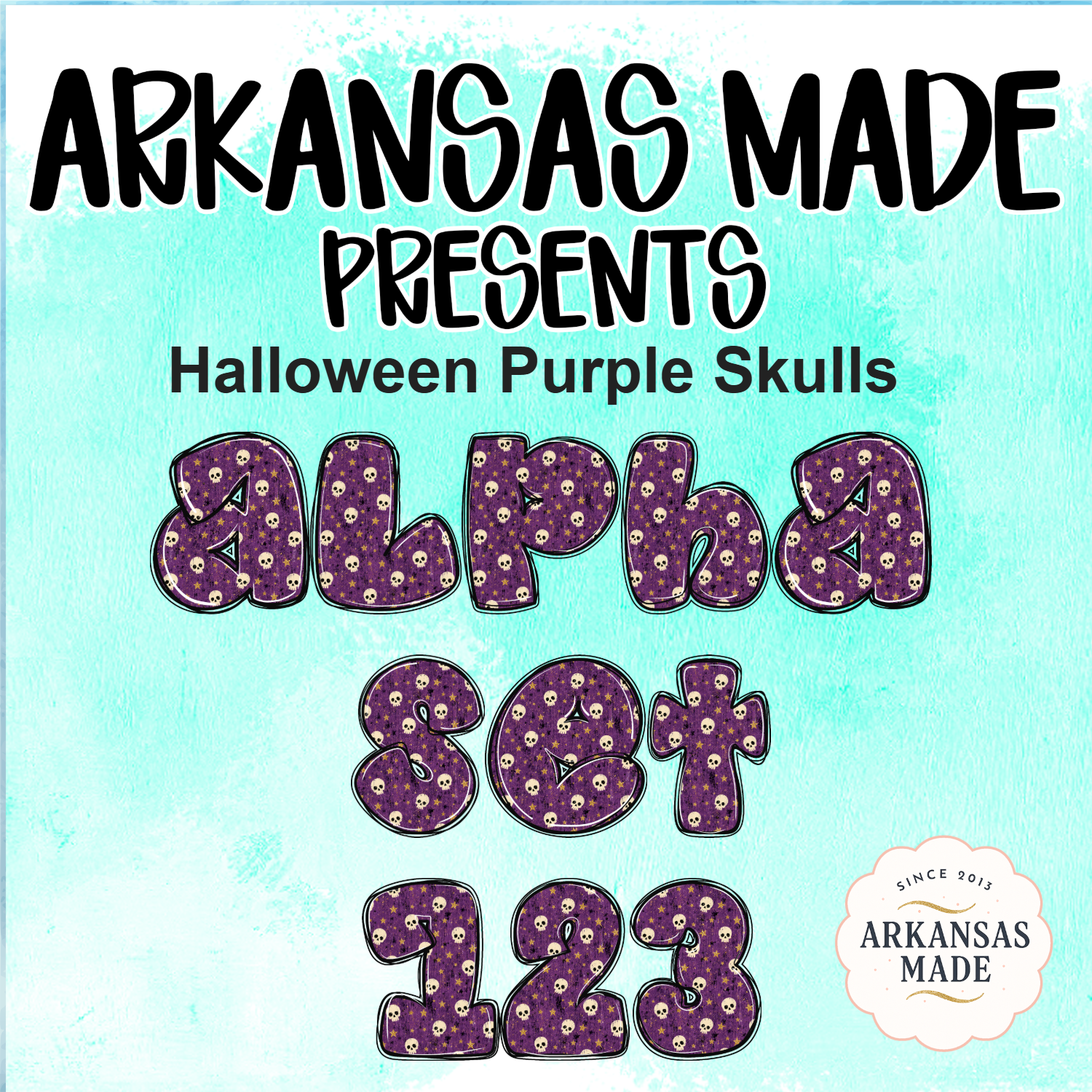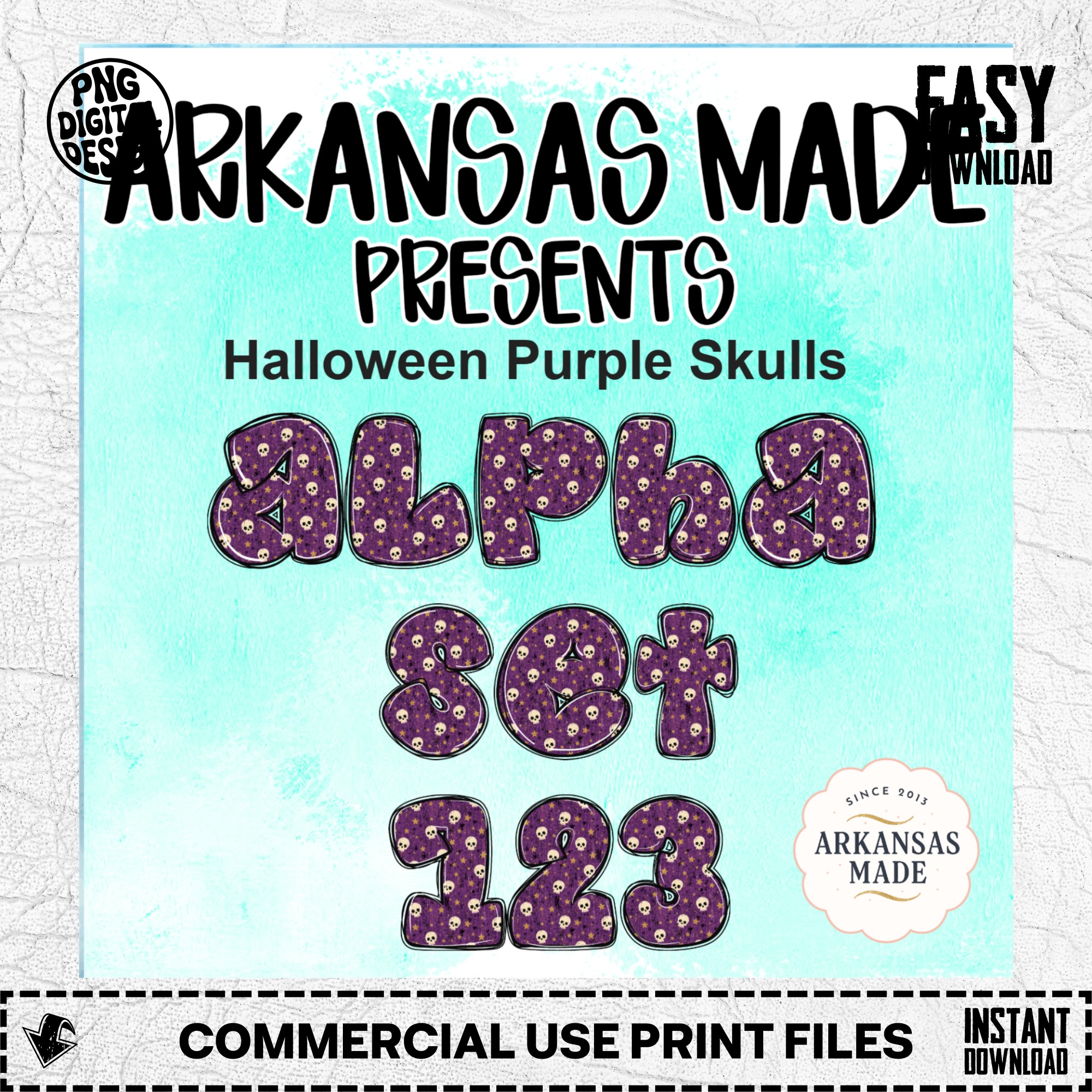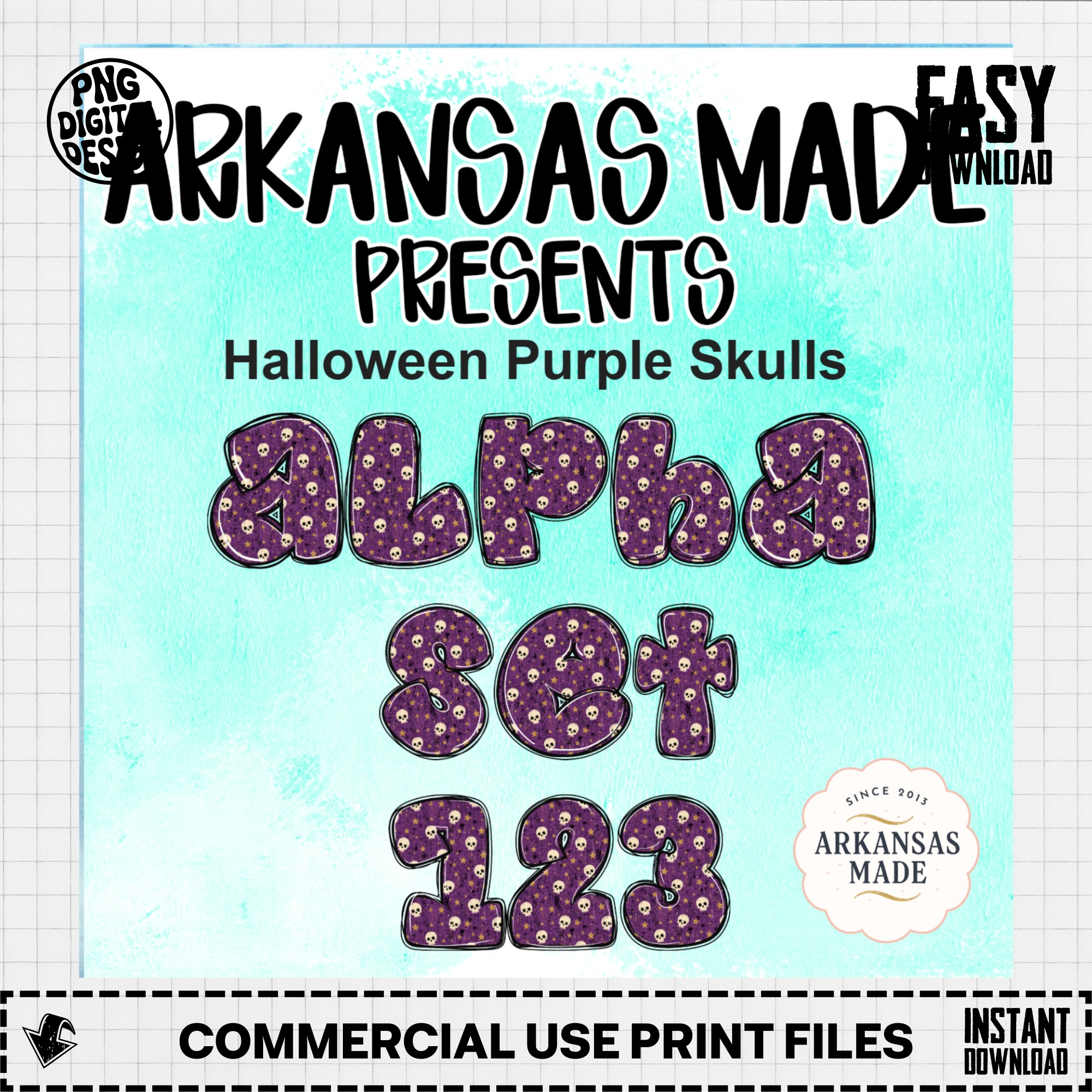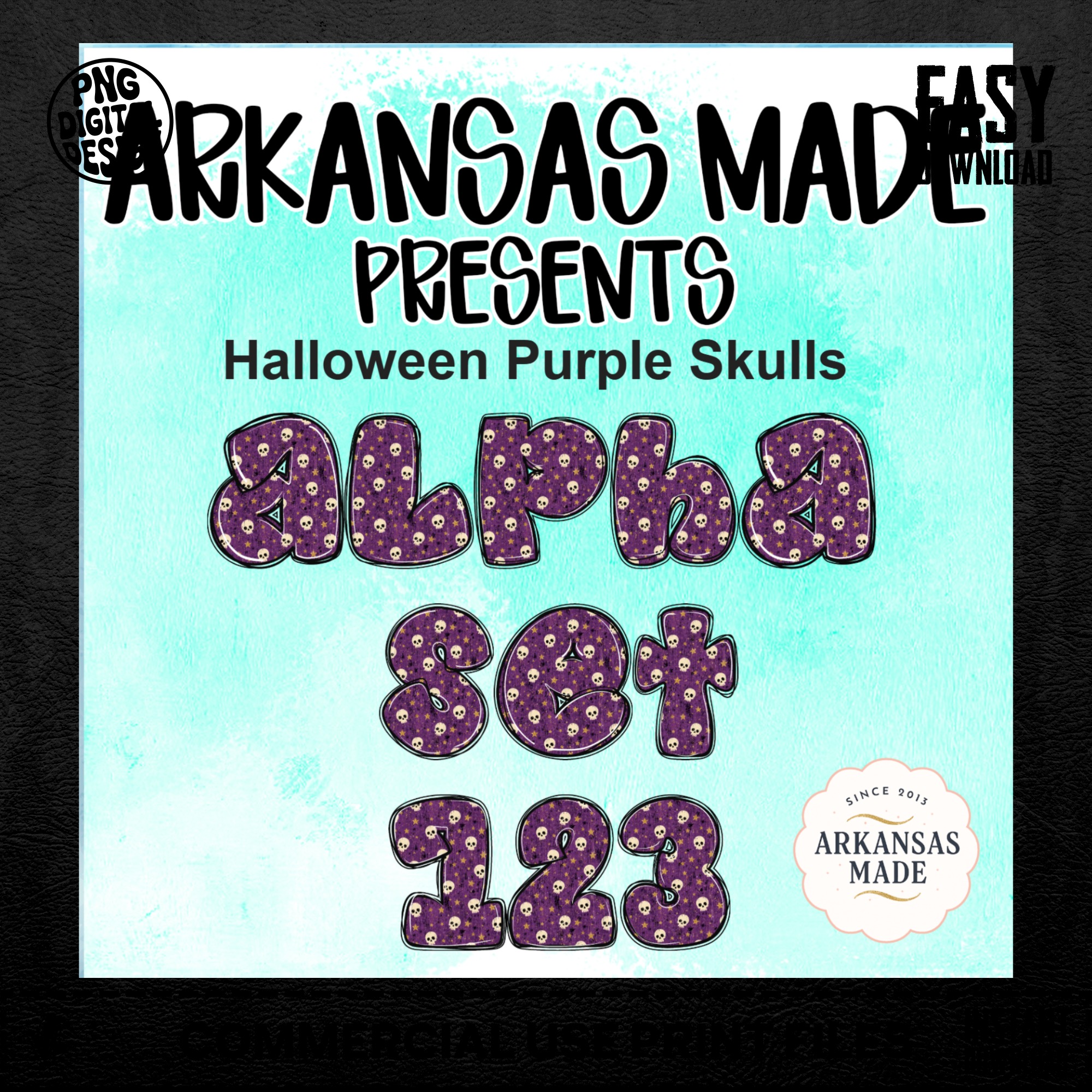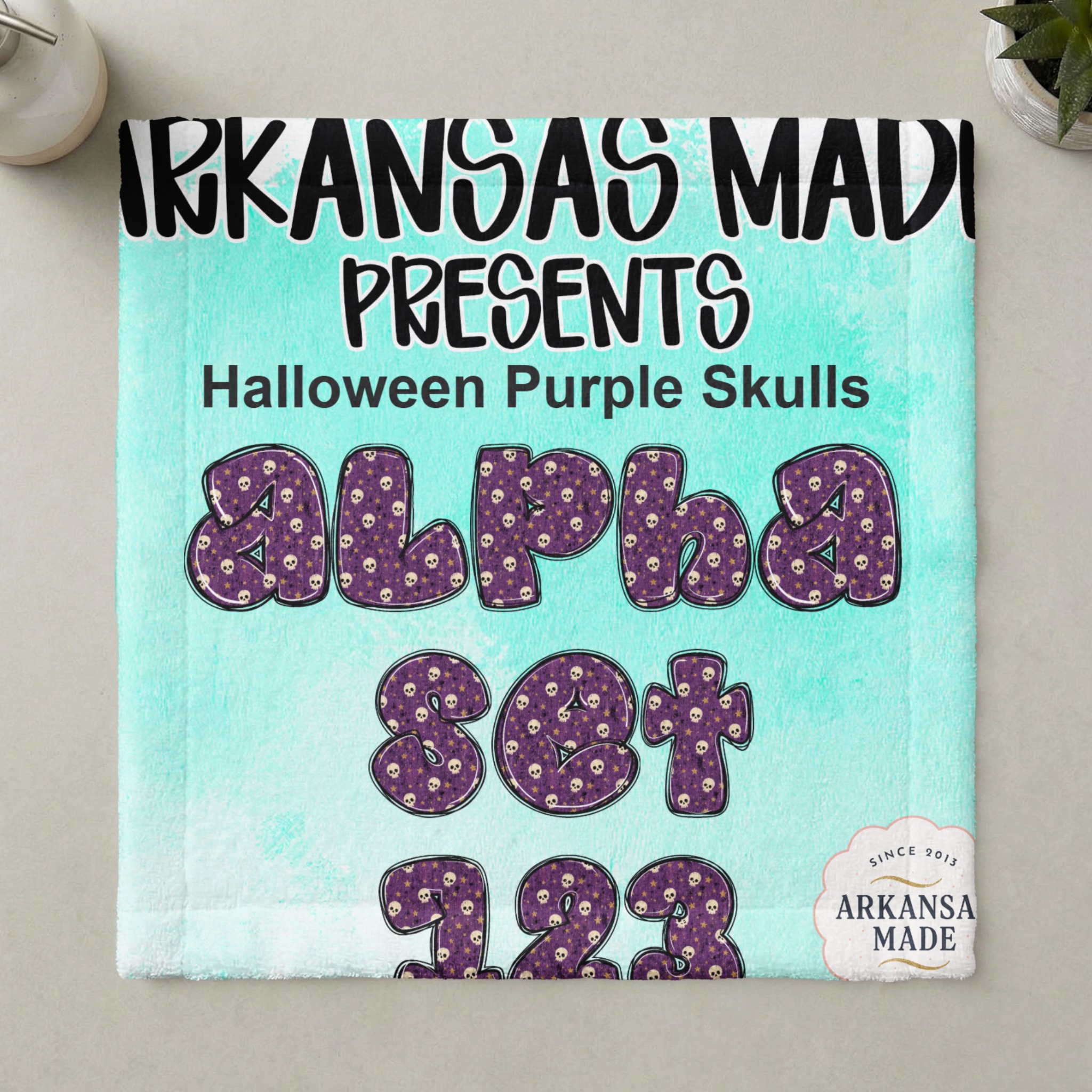
Halloween Purple Skulls Alpha Set 123 Digital PNGs – Spooky Font Clip Art Letters & Numbers Pack
Unleash your creativity with our Halloween Purple Skulls Alpha Set 123 digital PNGs, perfect for all your spooky season designs. This unique Halloween font offers a whimsical yet eerie vibe, ideal for crafters, party planners, and DIY enthusiasts. Elevate your invitations, decorations, and personalized gifts with these captivating skull-patterned letters and numbers.